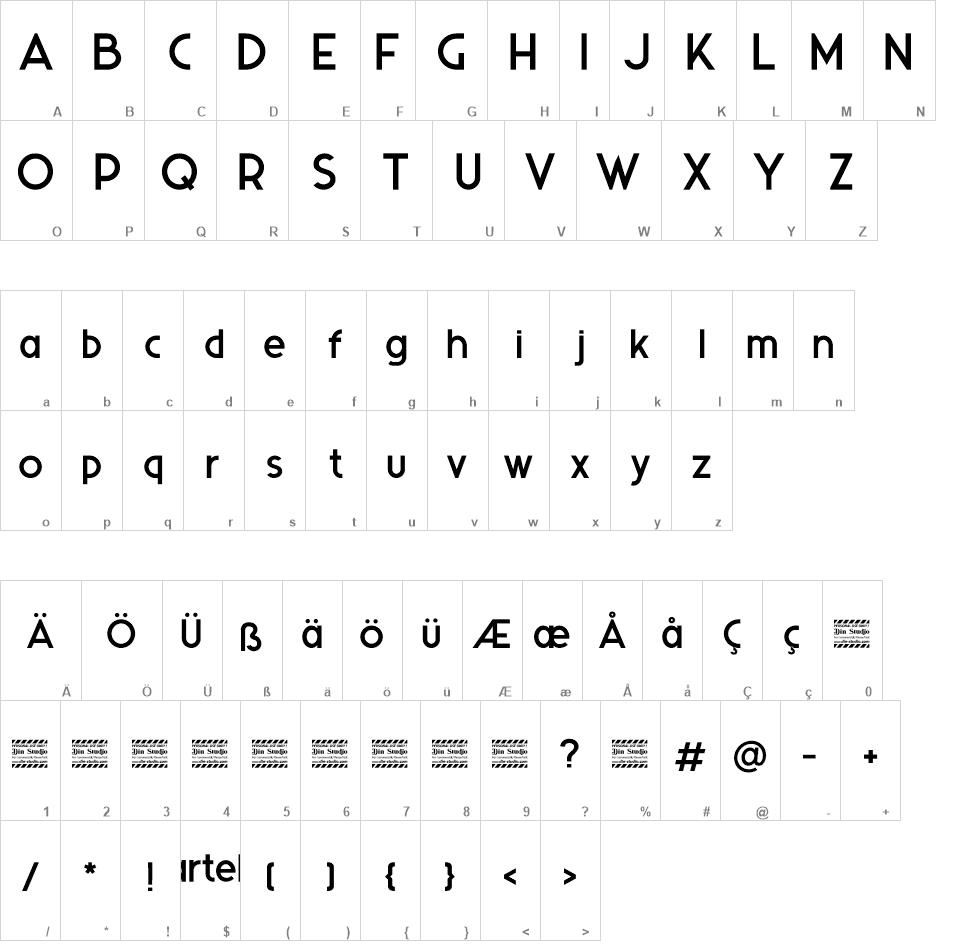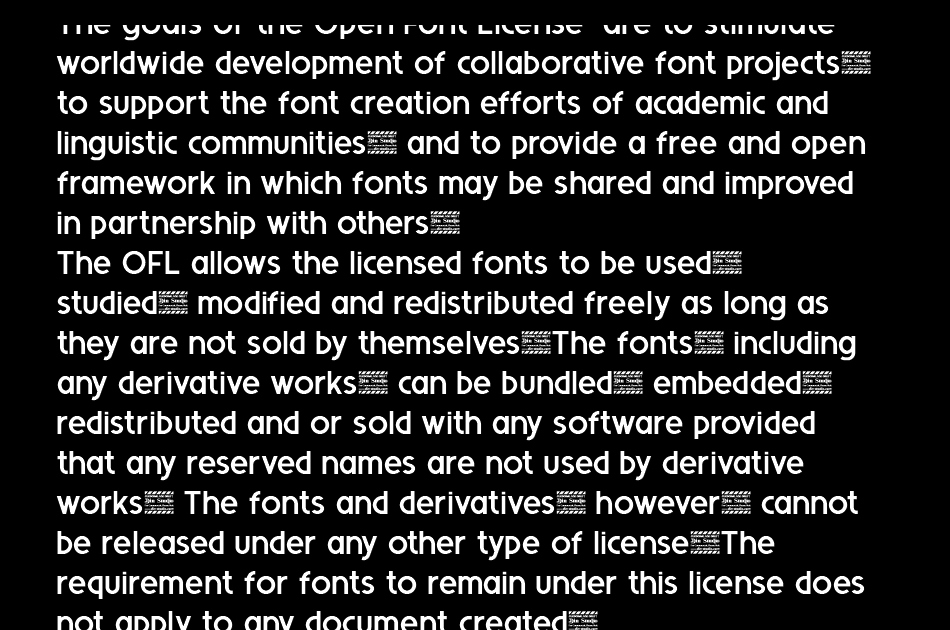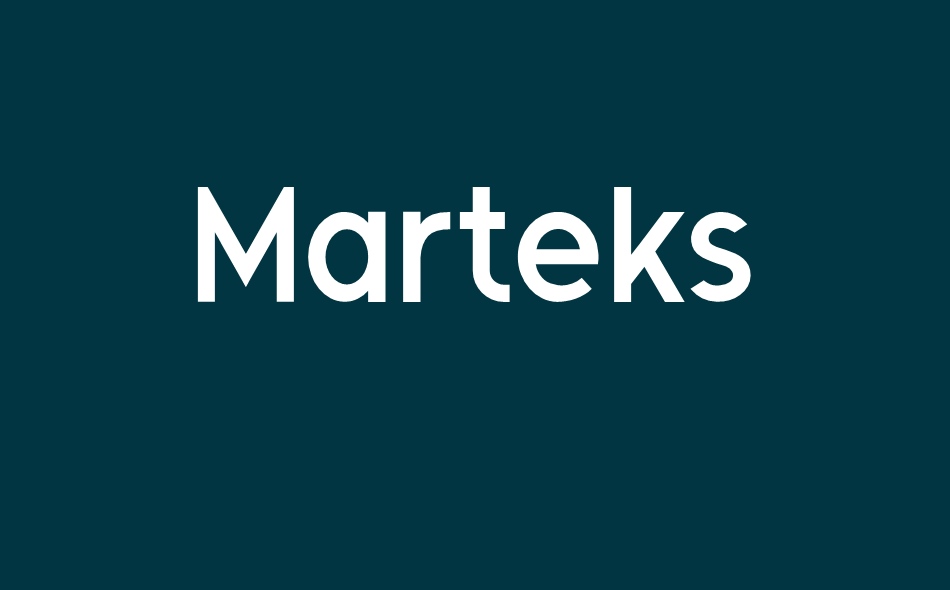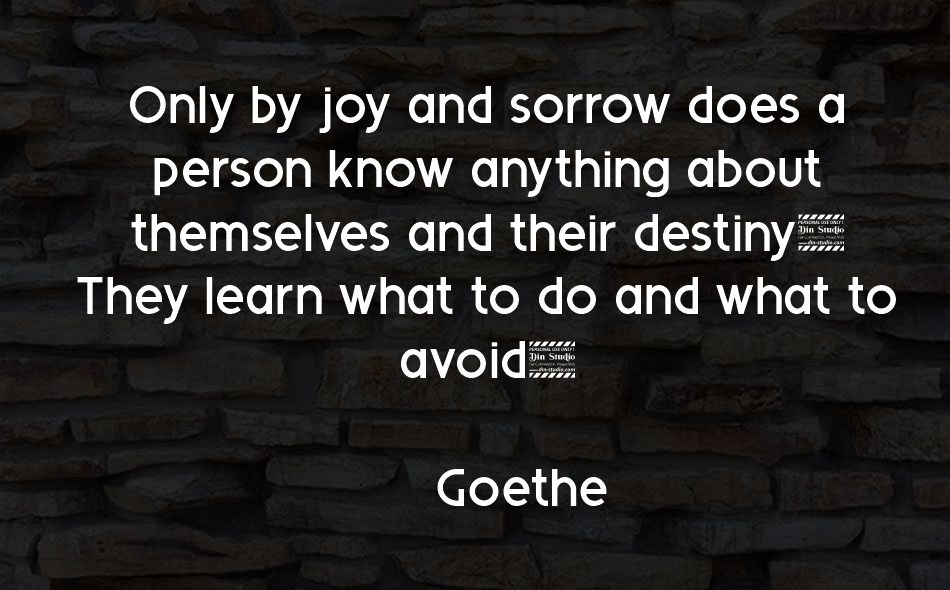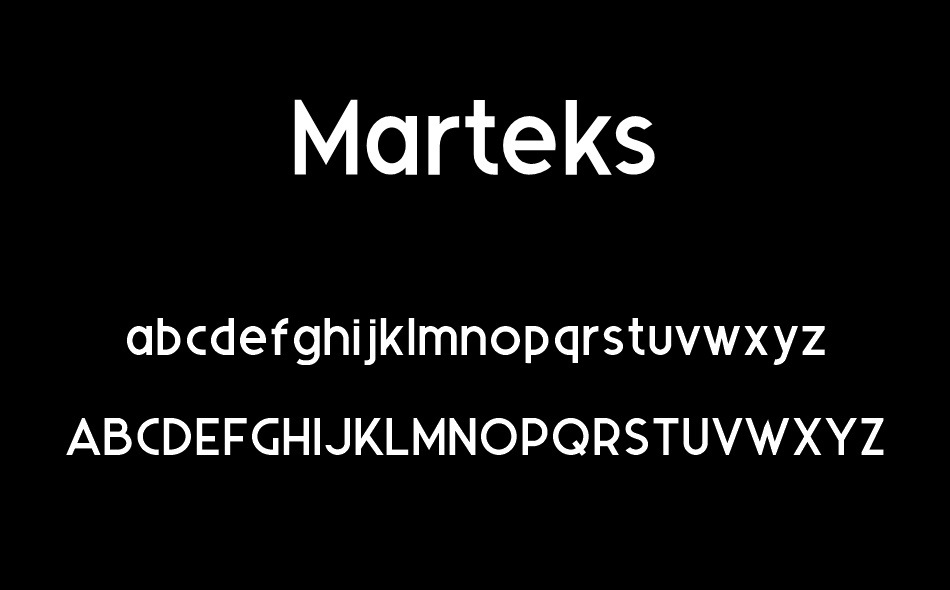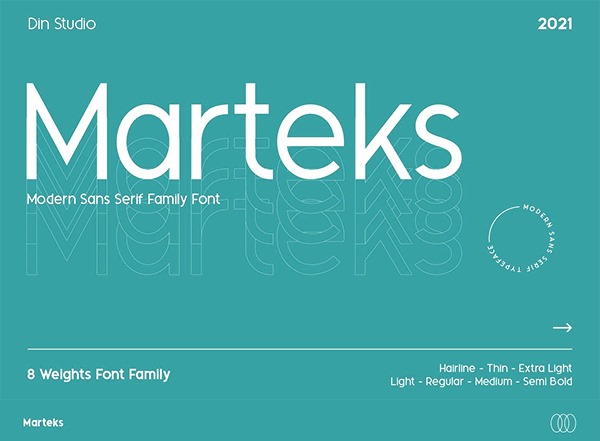
Marteks font
Marteks-A Sans Serif Font Family
If we can give you many options then why not? Marteks is a package that will makes you super excited. With this family you will get many options to maximize your designs with stylish fonts. This font is more than just another sans serif font. It encapsulates the essence of luxury and modernity.